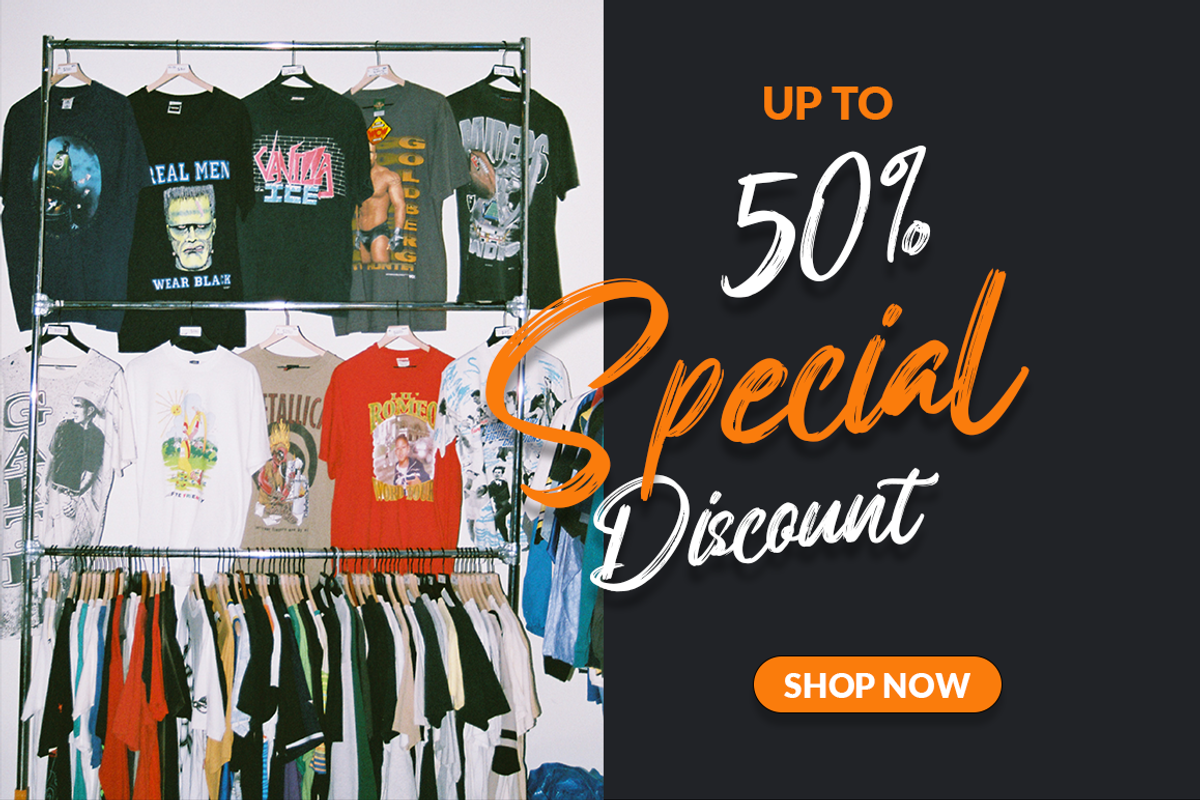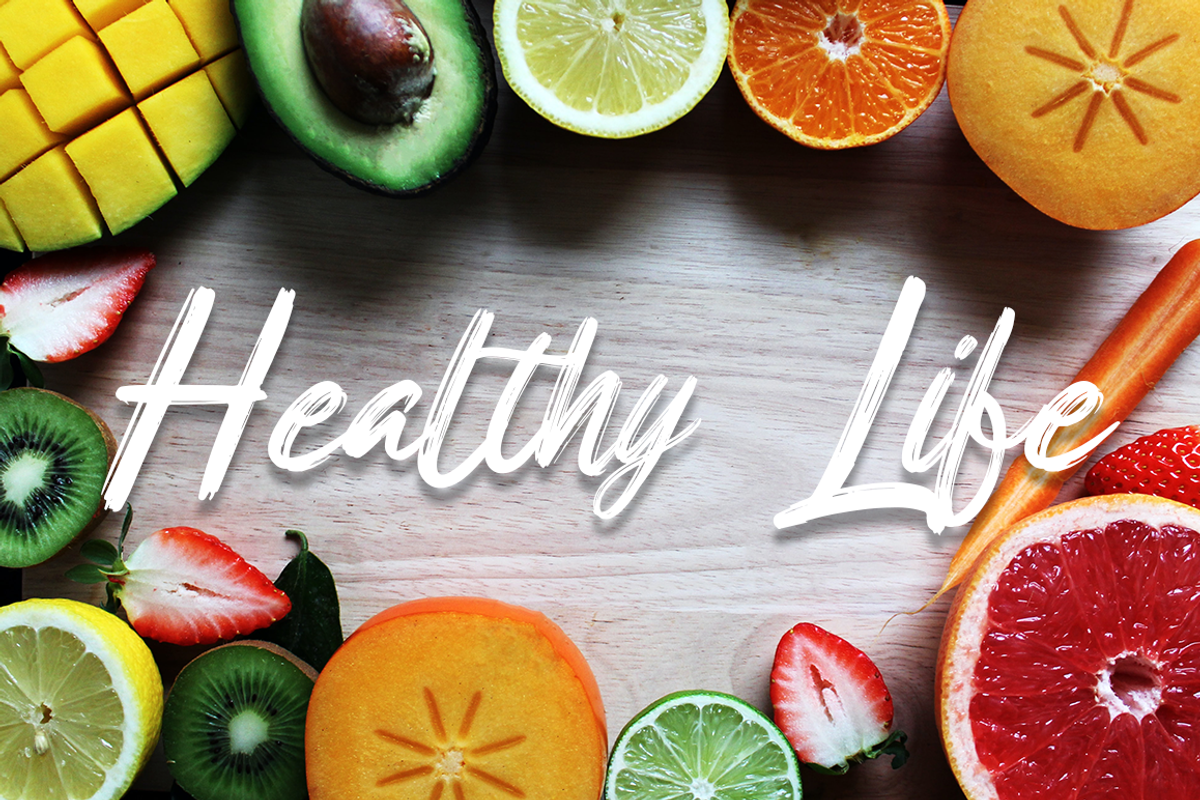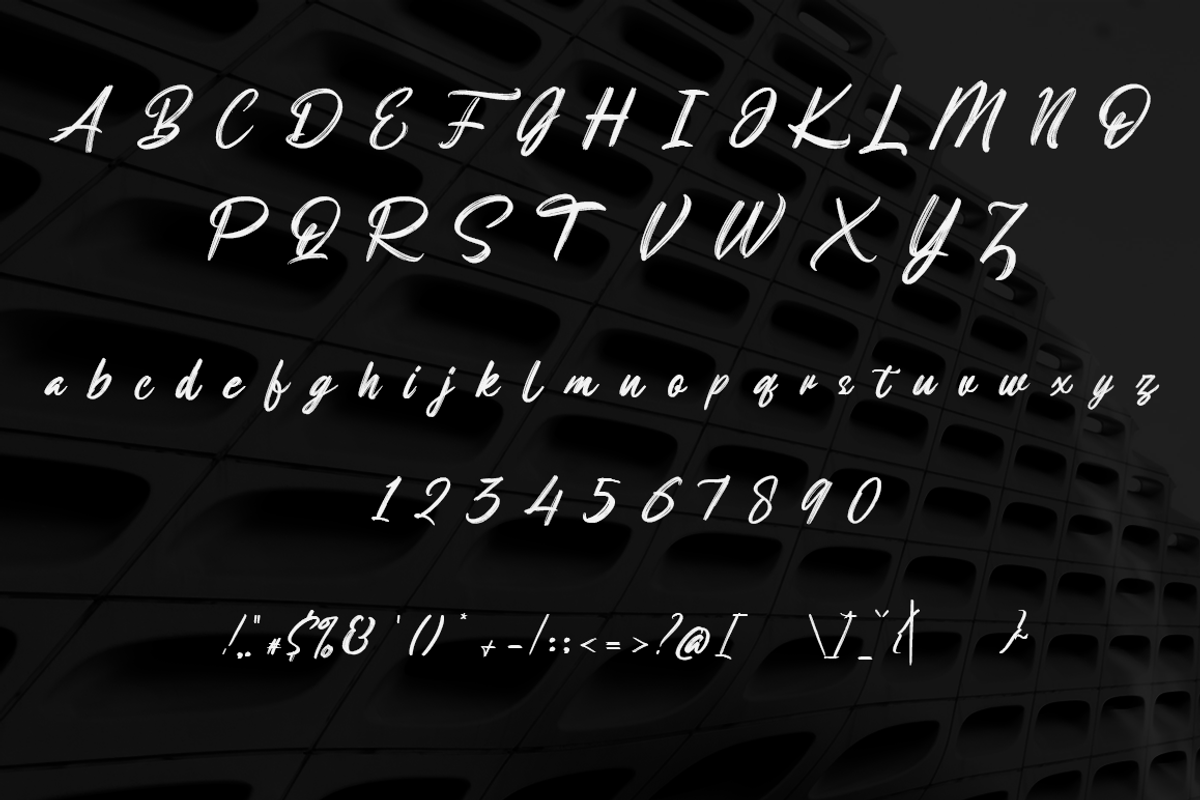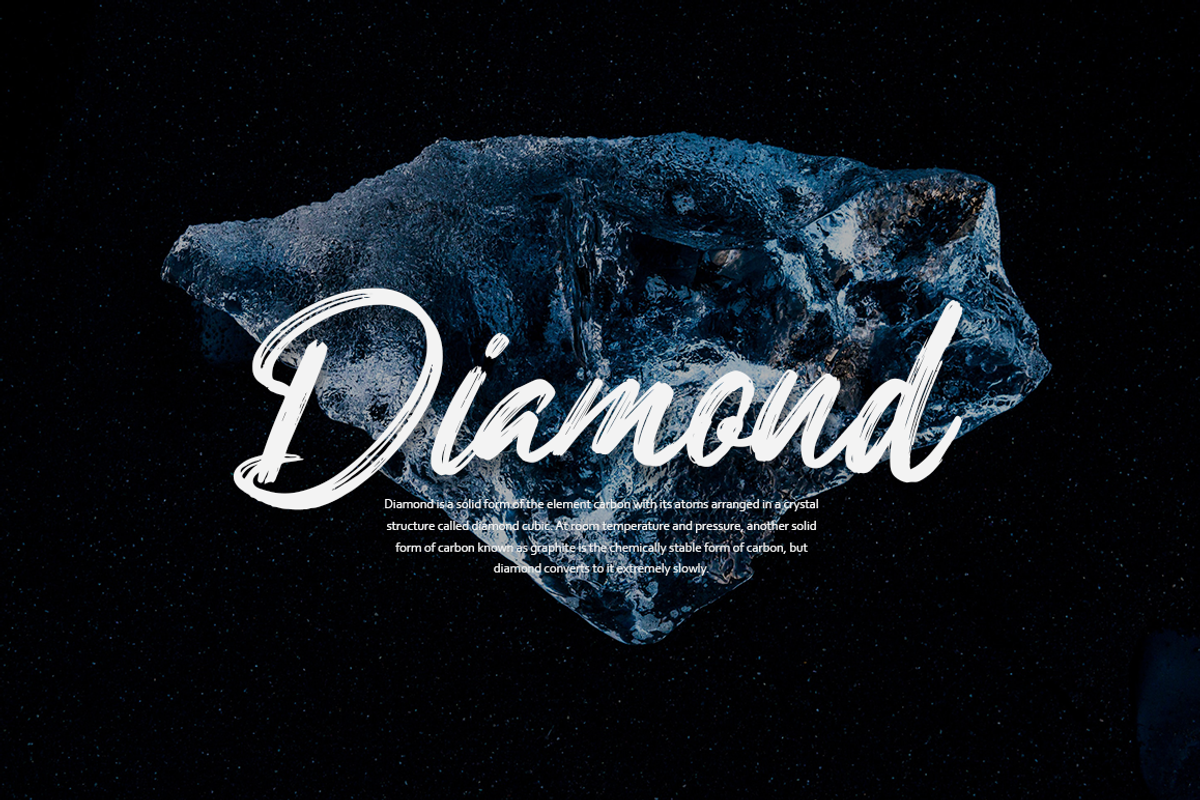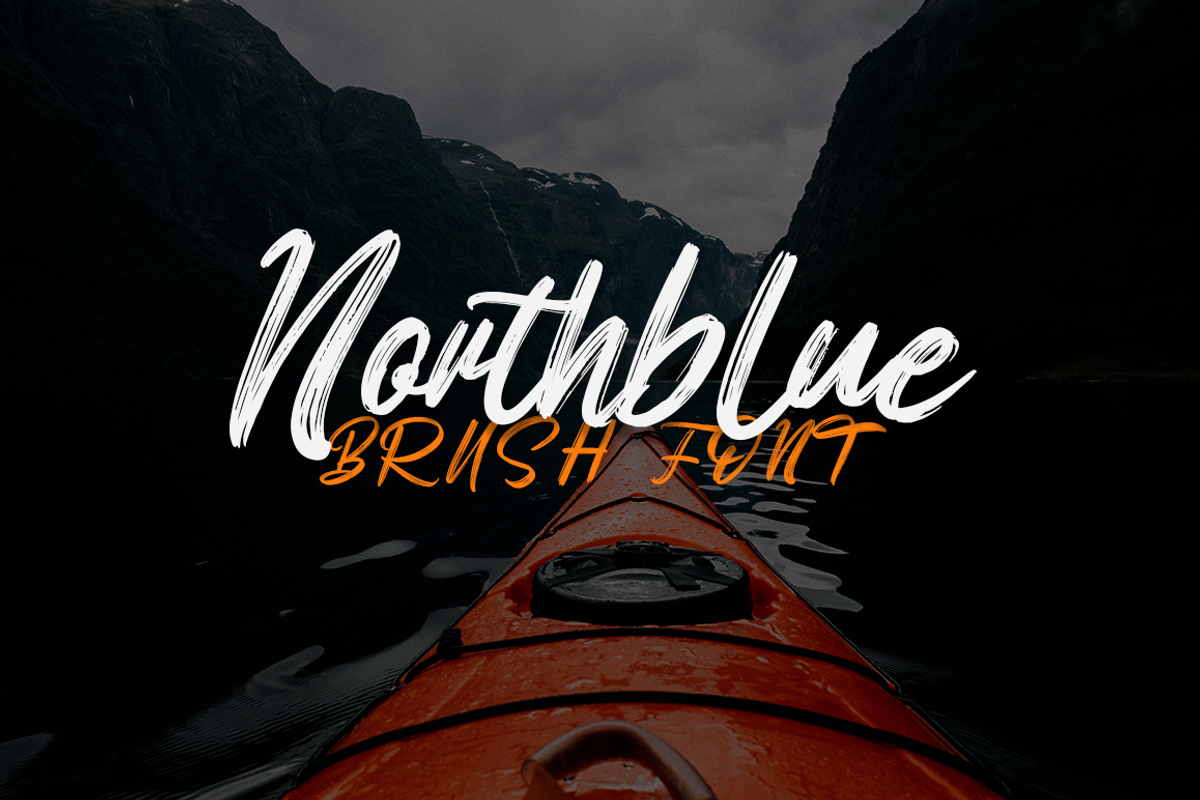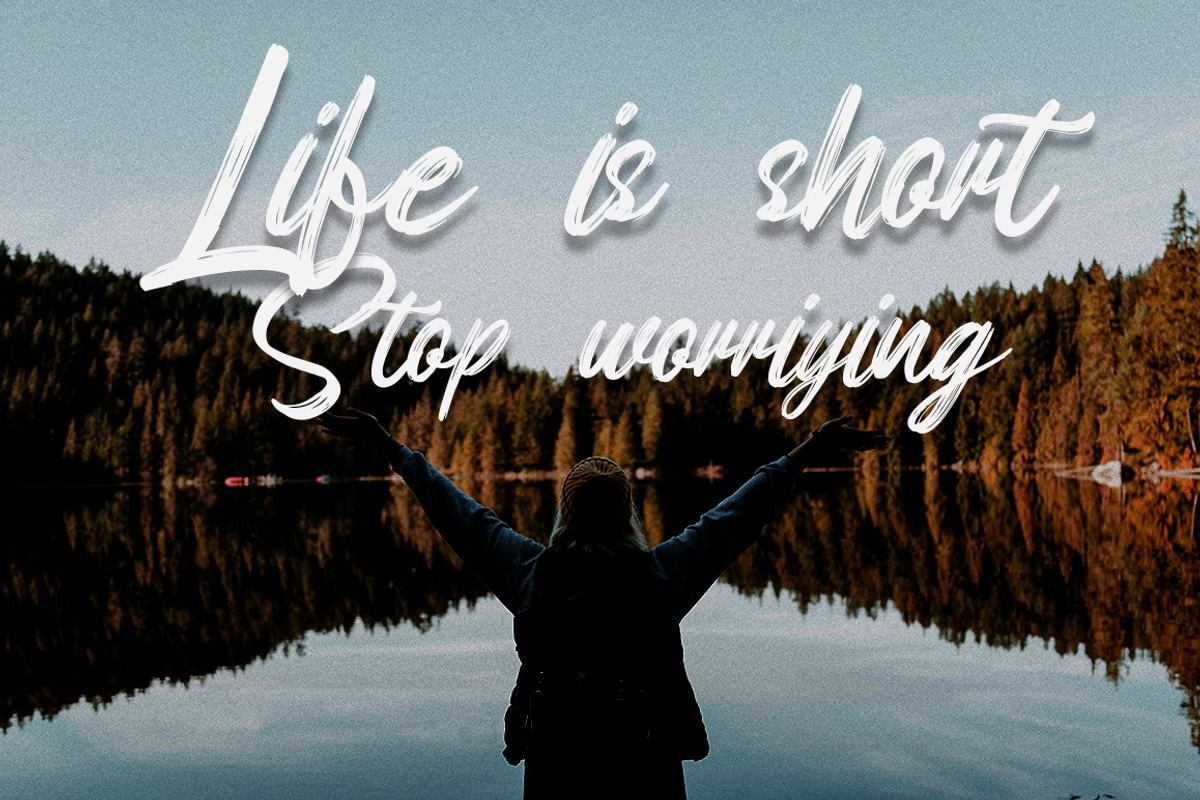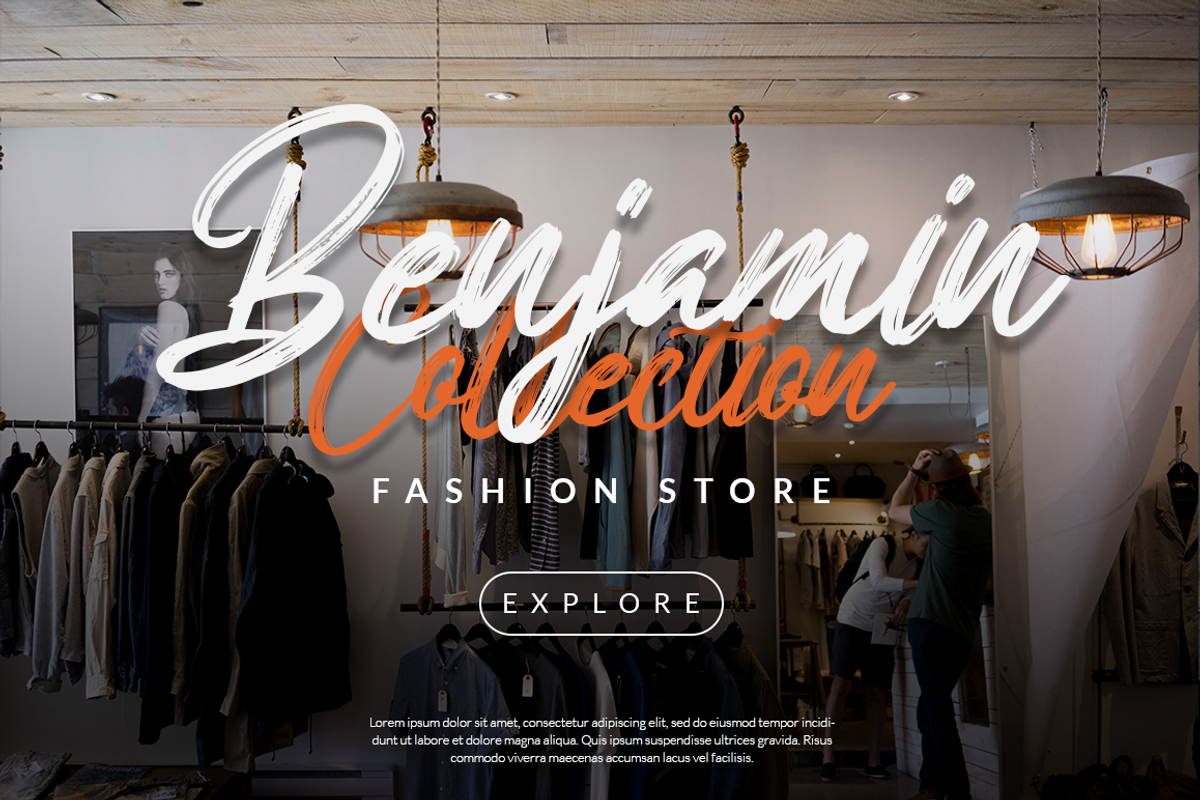
Northblue - Brush Font
Northblue is a textured brush font, a contemporary approach to design, handmade naturally with irregular base lines. This typeface is ideal for use in any professional project, such as blog titles, posters, wedding elements, t-shirts, clothing, book covers, business cards, greeting cards, branding, merchandise etc.
- Multilingual Language